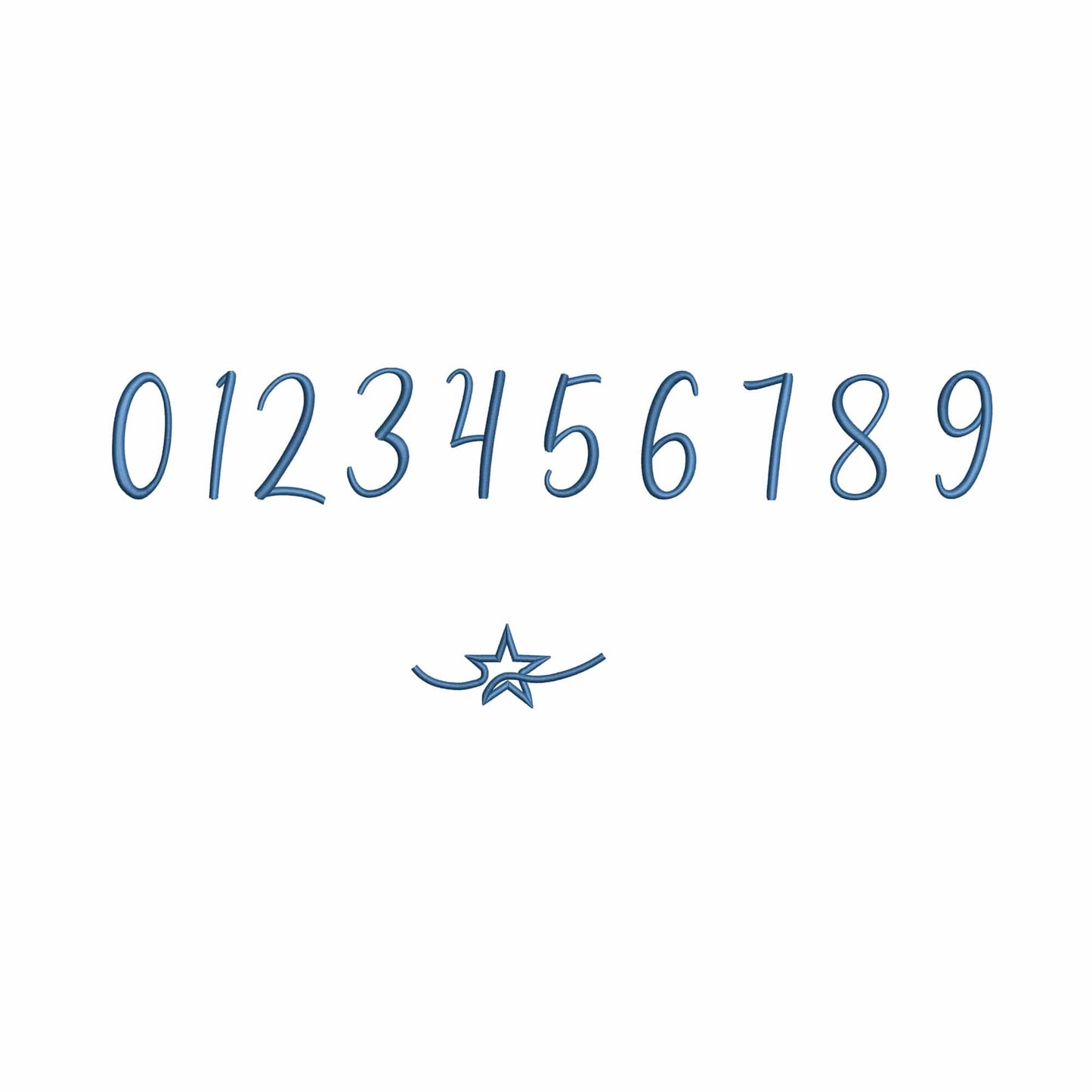
Stars - Embroidery font
• Included: A-Z (uppercase), a-z (lowercase), 0-9 (numbers), star
This Christmas machine embroidery font works well for holiday shirts, towels, gifts, stockings, and festive custom embroidery.